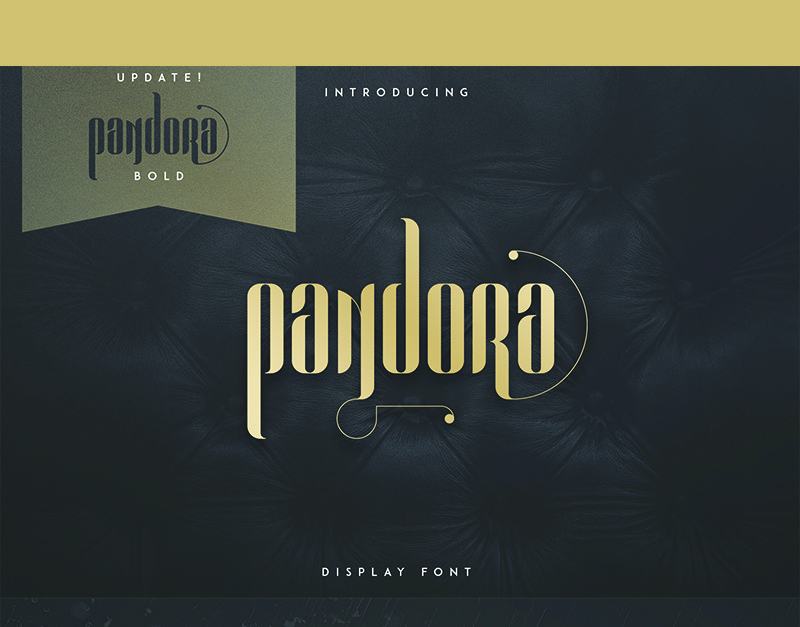
Pandora Font
Pandora is modern display font with 82 alternative glyphs and multilingual support. It's a very versatile font that works great in large and small sizes.
Pandora is perfect for branding projects, home-ware designs, product packaging, wedding invitations, magazine headers - or simply as a stylish text overlay to any background image.
- Uppercase,lowercase,numeral,punctuation & Symbol
- 82 Alternative Glyphs
- Ligatures
- Multilingual